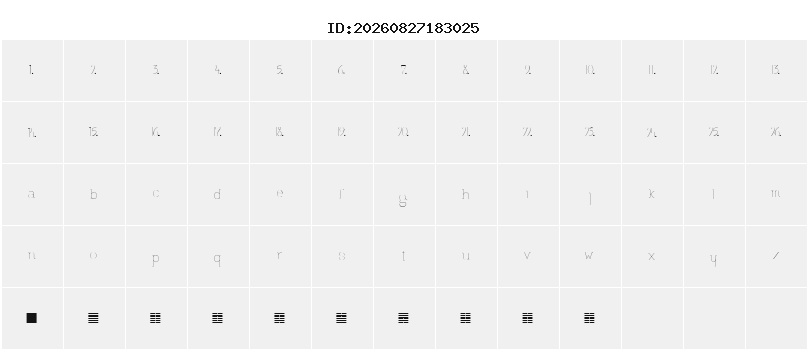
to whom it may concern type Preview
• Font Name: to whom it may concern type
• Full Font Name: to whom it may concern type
About to whom it may concern type.ttf
to whom it may concern type.ttf is a modern, elegant sans-serif font designed for ultimate readability and visual harmony. Perfect for branding, headlines, web design, and print materials.